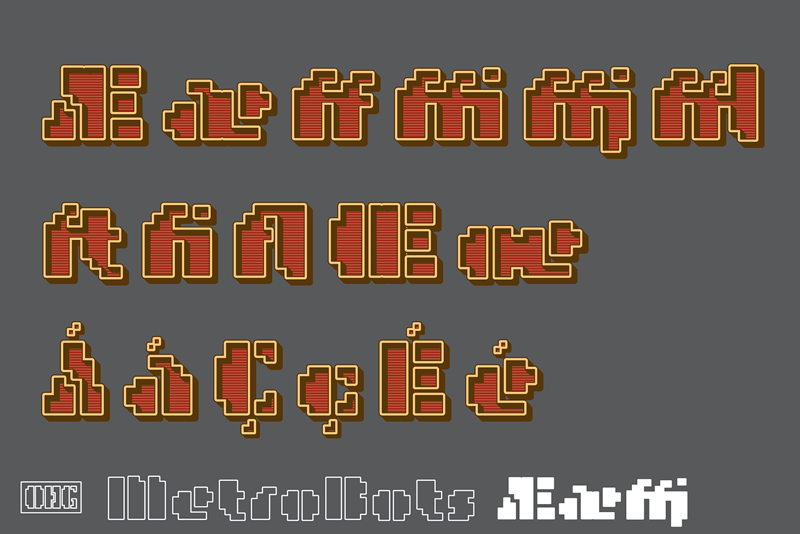
Font name: | MetroBots |
Author: | Our House Graphics (OHG) |
MetroBots Chrome is a family of 10 SVG OpenType Colour fonts in a category all their own. Made from big city skylines, long tropical morning shadows cast by ancient ziggurats and entire pueblo apartment blocks nestled into the steep cliff-sides of the sage-topped mesas of the south western deserts. This is a solid, and frankly, kind of wacky looking display family with the heft of those good old-fashioned wooden building-blocks and the look and feel of both modern and ancient adobe architecture... With a bit of the not-so-subtle expressiveness of a comical robot high on WD-40. |